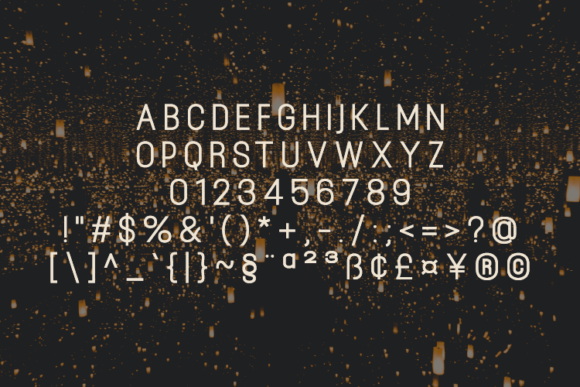
Dumblerun Font: Elevate Your Designs with a Modern Sans Serif Elegance
In the realm of typography, fonts play a pivotal role in conveying messages, evoking emotions, and creating lasting impressions. For designers and crafters seeking a modern, elegant, and versatile typeface, Dumblerun Font emerges as an exceptional choice. This article delves into the characteristics, applications, and benefits of using Dumblerun Font in your design projects, ensuring you can harness its full potential to elevate your creative outputs.
Introduction to Dumblerun Font
Dumblerun Font is a fancy and modern sans serif font, meticulously crafted to offer an exquisite, yet subtle look. Its design ensures maximum versatility, making it suitable for a wide array of projects, from branding and advertising to packaging and digital media. The font’s clean lines, balanced proportions, and elegant curves contribute to its sophisticated appearance, allowing designers to achieve a refined aesthetic in their work.
Key Features of Dumblerun Font
- Modern Sans Serif Design: Dumblerun’s contemporary sans serif style ensures it remains legible and impactful across various platforms and applications.
- Elegant and Subtle: The font strikes a perfect balance between elegance and subtlety, making it ideal for designs that require a touch of sophistication.
- Versatility: Its versatile nature allows it to be used in a multitude of design projects, offering flexibility and consistency in your typography.
- Legibility: Despite its elegant design, Dumblerun maintains high legibility, ensuring your message is conveyed effectively.
Applications of Dumblerun Font
The adaptability of Dumblerun Font makes it a valuable asset for various design endeavors. Here are some of the key areas where this font can make a significant impact:
- Branding and Logotypes: Create memorable brand identities with Dumblerun’s distinctive and elegant letterforms.
- Advertising and Marketing Materials: Enhance your promotional content with a sophisticated typeface that captures attention and conveys professionalism.
- Packaging Design: Elevate product packaging with a modern and refined font that adds a touch of luxury.
- Digital Media: Utilize Dumblerun in digital platforms, including websites, mobile apps, and social media graphics, to maintain a consistent and elegant visual identity.
Benefits of Using Dumblerun Font
Choosing Dumblerun Font for your design projects comes with several advantages:
- Unique Aesthetic: Stand out with a unique and contemporary typeface that differentiates your designs.
- Time-Efficiency: Its versatility and legibility save time in selecting and pairing fonts for different design elements.
- Professionalism: Impress your audience with a professional and polished look that enhances your brand’s image.
- Cross-Platform Compatibility: Dumblerun’s design ensures it performs well across various mediums, from print to digital.
In conclusion, Dumblerun Font stands out as a versatile and elegant sans serif typeface suitable for designers and crafters aiming to infuse their projects with a modern and sophisticated touch. Its unique blend of subtlety, elegance, and legibility makes it an invaluable tool in the world of typography. By incorporating Dumblerun into your design repertoire, you’re equipped to create visually stunning and effective communications that resonate with your audience.